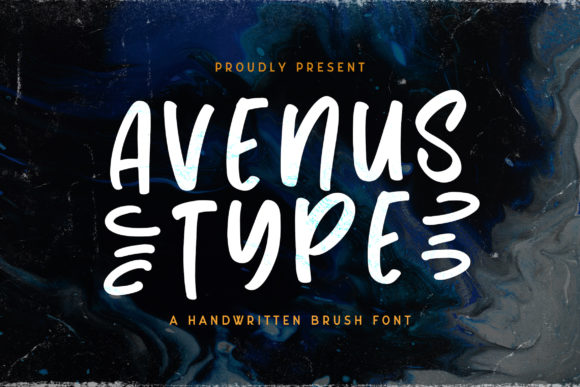
Unleash your creative genius and step into the realm of extraordinary typography with Avenus Type, the font family that transforms your designs into stunning visual masterpieces. Bold, expressive, and bursting with personality, Avenus Type is the ultimate choice for display ads that demand attention and leave a lasting impression.
With its playful and endearing nature, Avenus Type possesses an uncanny ability to connect with audiences on a deeper level. Its friendly and inviting demeanor makes it the perfect font for crafting messages that resonate with customers, adding a touch of warmth and relatability to your brand's voice.
Whether you're crafting captivating headlines, engaging social media posts, or designing eye-catching advertisements, Avenus Type is your secret weapon for captivating audiences and driving conversions. Its versatility knows no bounds, effortlessly adapting to a myriad of contexts and industries, from fashion and beauty to technology and travel.
Immerse yourself in a world of creative possibilities and let Avenus Type ignite your imagination. Its distinctive style adds a dash of whimsy and charm to any project, captivating audiences with its unique personality and delightful details. Experience the transformative power of typography and elevate your designs to new heights with Avenus Type.
Join the ranks of design visionaries who have discovered the magic of Avenus Type. Embrace its playful spirit and unlock a world of creative opportunities, leaving your mark on the digital landscape with typography that speaks louder than words.